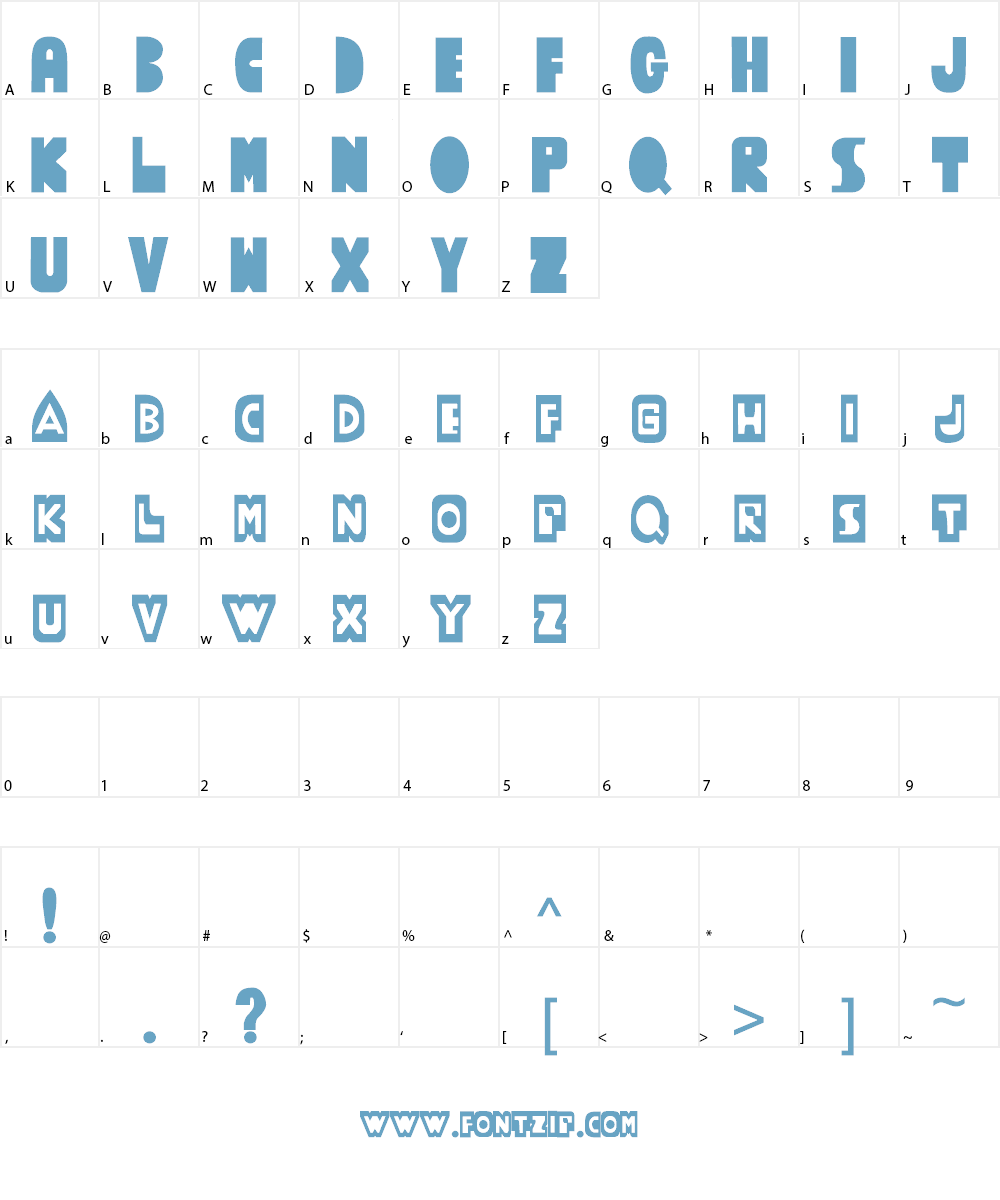
if you were looking for a sort of wonky art deco bauhaus kind of font? with a really wide W? and lots of extra small cap G's? then this is really a coincidence! but then neither of us really believes in coincidences do we? which makes this an even bigger coincidence, doesn't it?